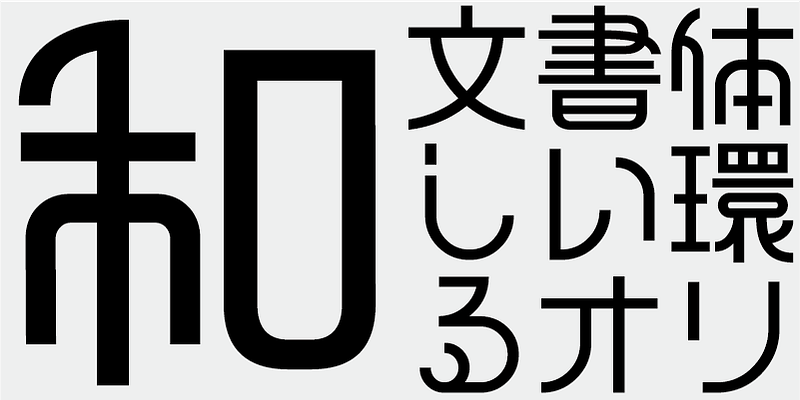
AB Hieros Regular Font Free Download is a clean and modern sans-serif typeface that features a sleek and geometric design. Its balanced proportions and simple, contemporary structure make it an excellent choice for a variety of design projects, including branding, web design, editorial layouts, and signage.
AB Hieros Regular offers versatility in both large headlines and smaller text, ensuring legibility while maintaining a professional aesthetic. It integrates smoothly with popular design tools like Adobe Illustrator, Photoshop, Figma, and Canva, making it an ideal choice for both print and digital media.